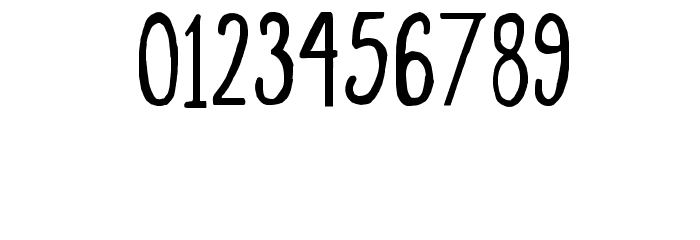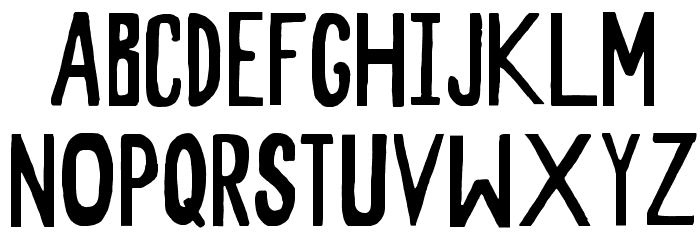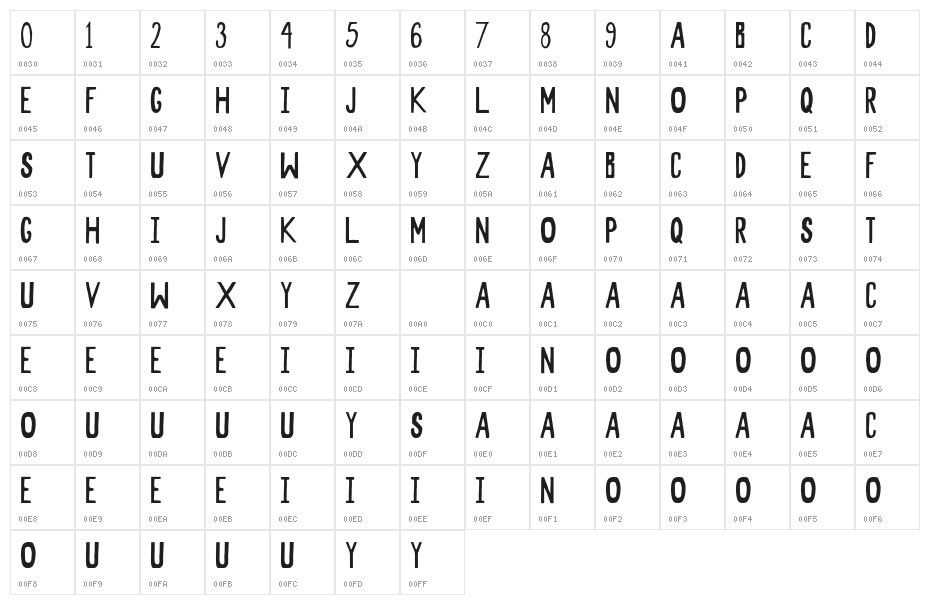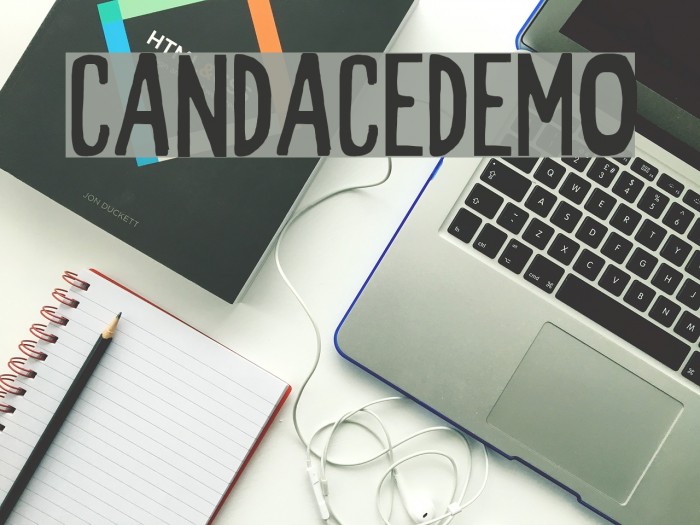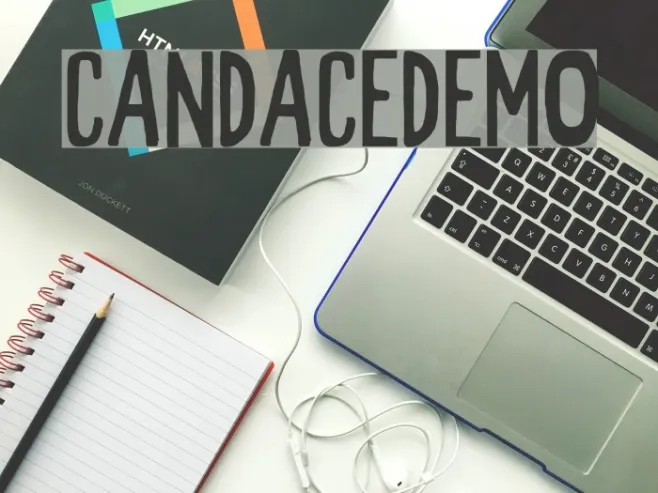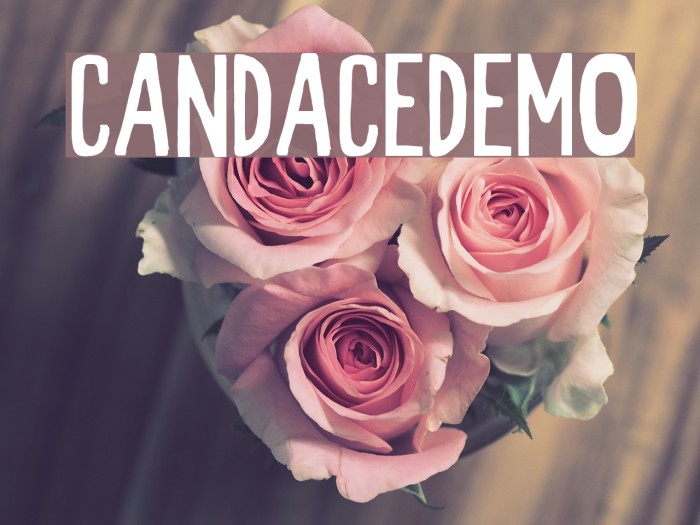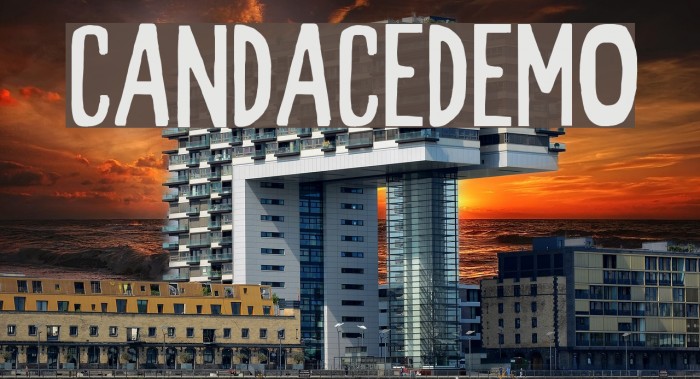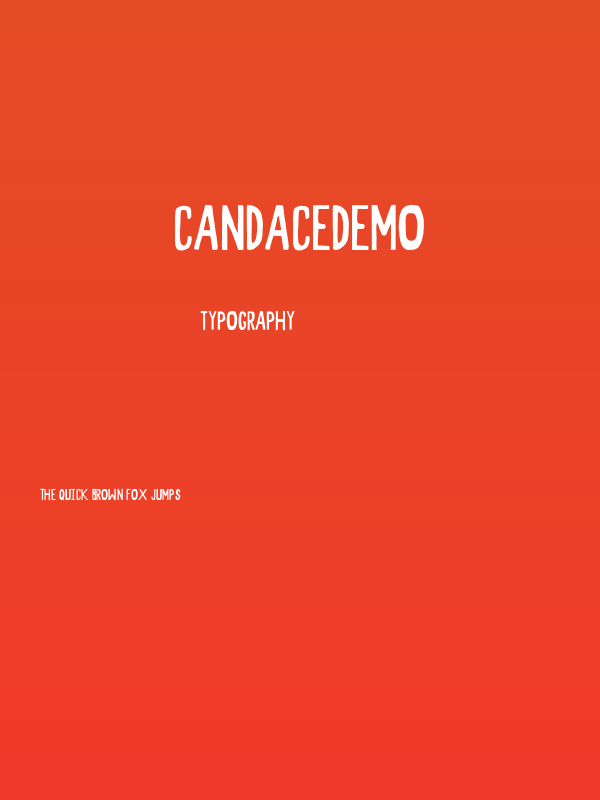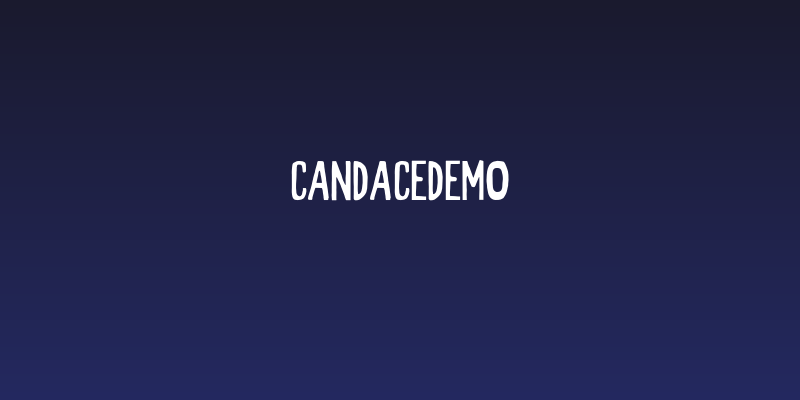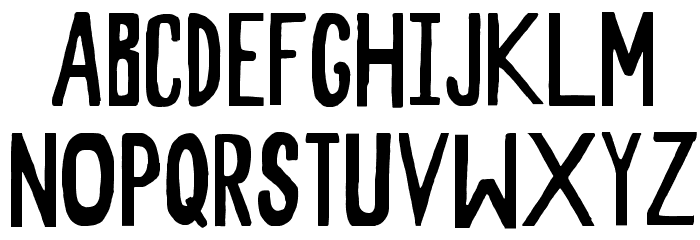
CandaceDemo Font
CandaceDemo Description
This font features a bold and playful style with a hand-drawn appearance. The uppercase letters are tall and slightly narrow, giving a sense of height and energy. The strokes are consistent in width, providing a uniform look across all characters. The numbers maintain the same playful style, ensuring cohesion throughout the font. The overall design is approachable and friendly, making it suitable for projects that require a touch of whimsy and creativity.
| Overall Style | Playful, Creative |
| Proposed Projects | Ideal for children's books, playful branding, posters, and creative invitations. |